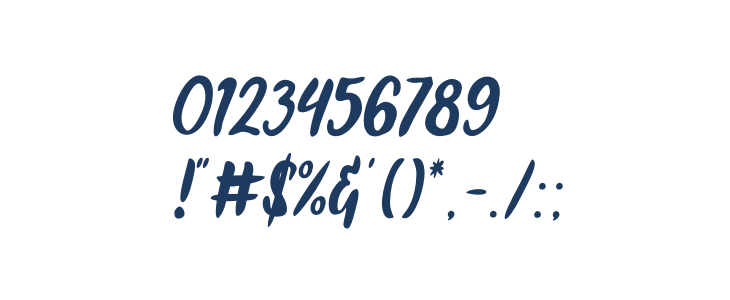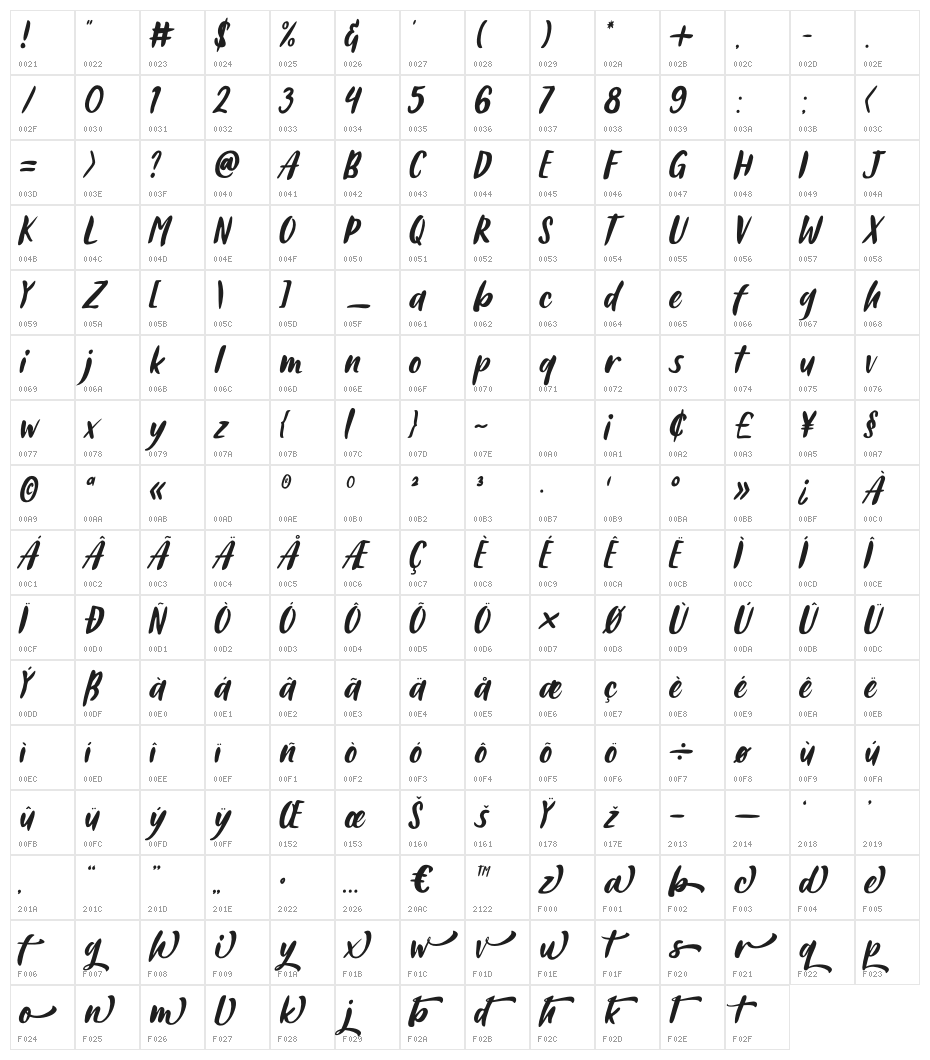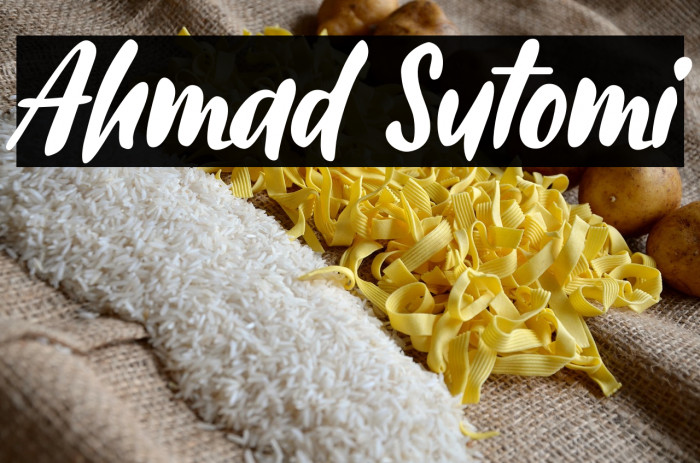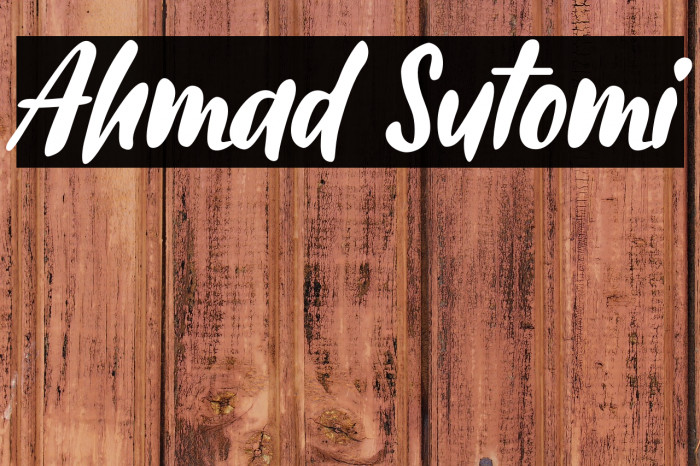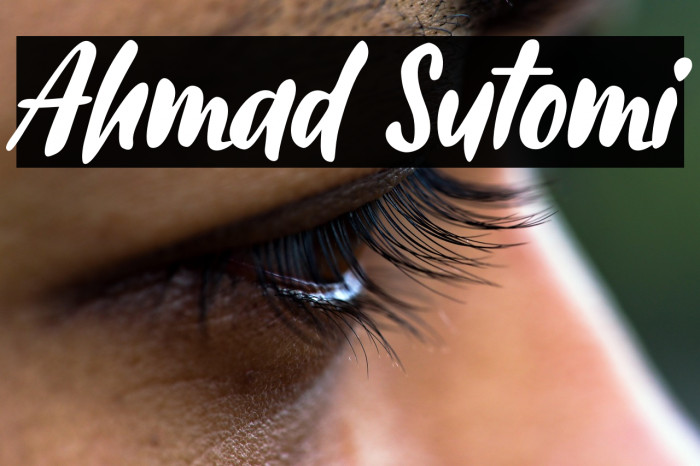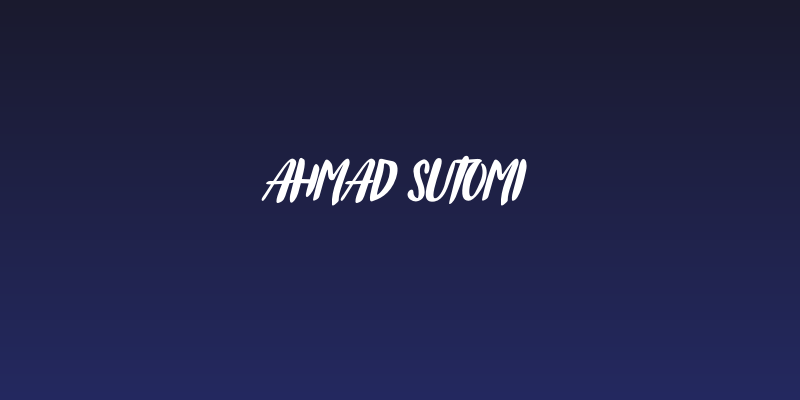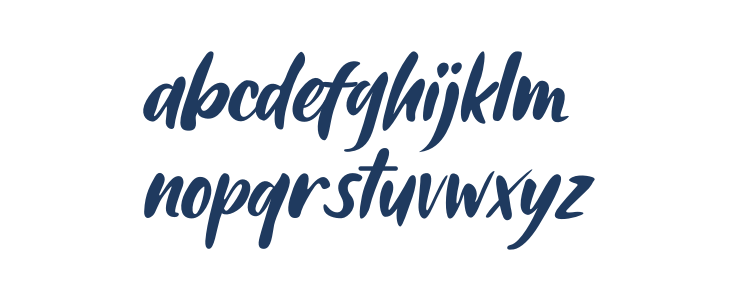
Ahmad Sutomi Font
Ahmad Sutomi Description
This font features a bold and expressive handwritten style, characterized by its fluid and dynamic strokes. The letters are slightly slanted, giving it a casual yet energetic appearance. The uppercase letters are bold and prominent, while the lowercase letters maintain a consistent flow, enhancing readability. The numerals and special characters are crafted with the same attention to detail, ensuring a cohesive look across all elements. This font's playful and artistic nature makes it suitable for creative projects that require a personal touch.
| Proposed Projects | Ideal for branding, posters, invitations, and social media graphics where a personal and artistic touch is desired. |